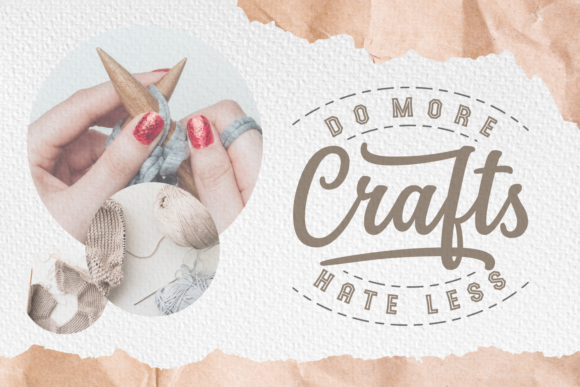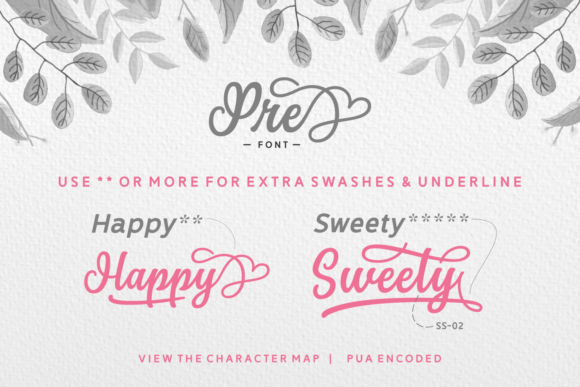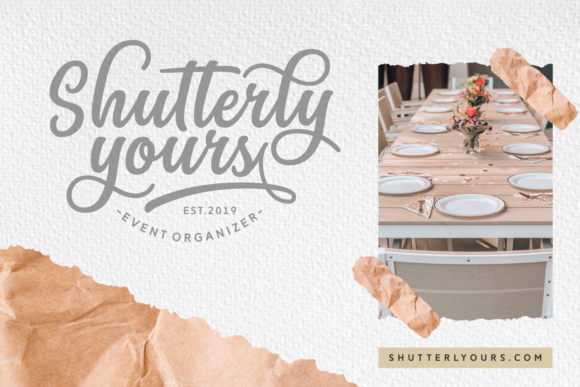
Introduction to Pre Font
As a designer, have you ever stumbled upon a font that instantly sparks creativity and sets your imagination ablaze? For me, that moment came when I discovered the Pre Font – a beautiful script font that has been a game-changer for my creative projects.
The Pre Font is more than just a design resource; it’s a high-quality font that elevates your designs to the next level. Whether you’re working on a packaging project, designing a logo, or branding a new business, this font is sure to impress. Its elegant and sophisticated feel makes it perfect for a wide range of applications, from print to digital media.
Key Features of Pre Font
- Comprehensive library of Pre Font designs, offering a wide range of styles and themes to suit various creative projects and design requirements.
Honest Review: Pre Font
I recently stumbled upon Pre Font, a free download that has been a game-changer for my creative projects. As a designer, I’m always on the lookout for high-quality design resources that can elevate my work.
Pre Font checks all the right boxes. The font is available with a transparent background, which makes it incredibly versatile. I’ve been able to use it in a variety of creative projects, from branding to digital design.
- ✨ High-quality design that looks great at any size
- ✨ Transparent background for easy customization
- ⚠️ Limited number of styles and weights available
- ⚠️ May not be suitable for complex typography projects
Overall, I’m really impressed with Pre Font. It’s a great addition to any designer’s toolkit, and I’ve been able to get a lot of use out of it in my creative projects. While it may have some limitations, I think it’s a solid choice for designers looking for a high-quality, free download.
Tips for Getting the Most Out of Pre Font
Use Pre Font in high-quality designs to add a touch of sophistication.
Take advantage of the transparent background feature to create seamless designs.
Combine Pre Font with other design resources to create unique and eye-catching creative projects.
Use Pre Font for:
- Brand identity designs
- Marketing materials
- Print design